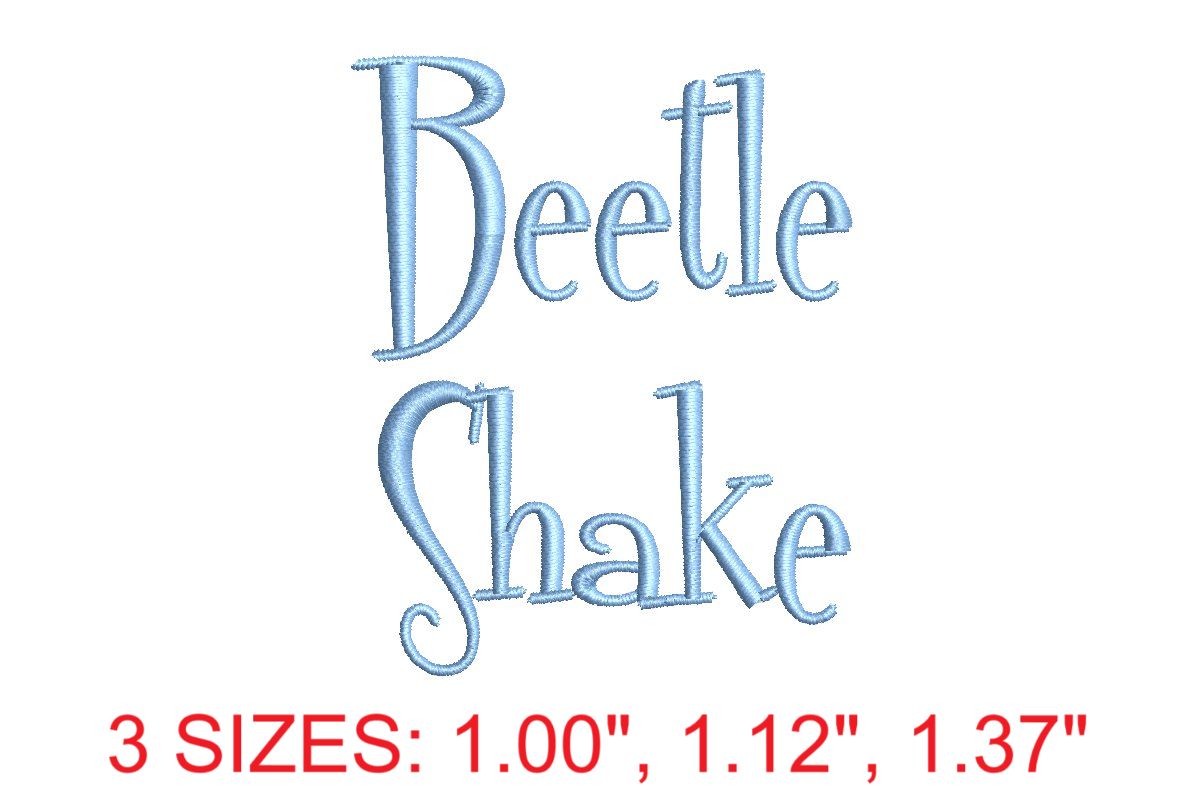
Beetle Shake Embroidery Font
Introducing the Beetle Shake embroidery font, your key to elevating your embroidery projects to a new level of sophistication. Beetle Shake offers a stylish and elegant script typeface, perfect for monograms, personalized designs, and more. The machine-ready PES files ensure seamless stitching, and the comprehensive font set empowers your creativity. Download Beetle Shake now to experience high-quality, professional embroidery fonts that will make your projects stand out. Elevate your embroidery game with Beetle Shake today! Please note: The sizes and stitches information shown below is for "A" and "a" in each size. This is provided as a summary of what is available in this download file. For the full dimension details of the 156 letters in this set, click on the More Sewing Info (PDF) button on this page. This machine embroidery design comes with multiple embroidery file formats and can be used with multiple embroidery machines.